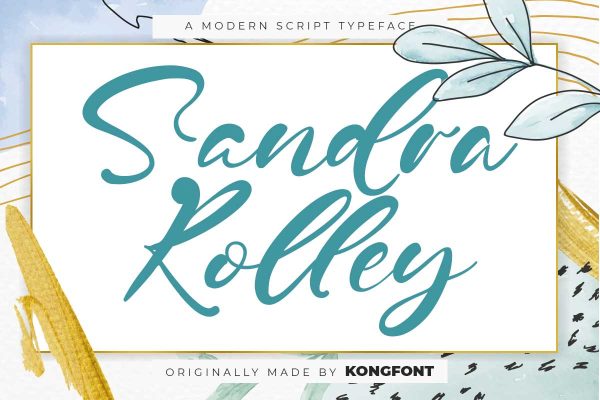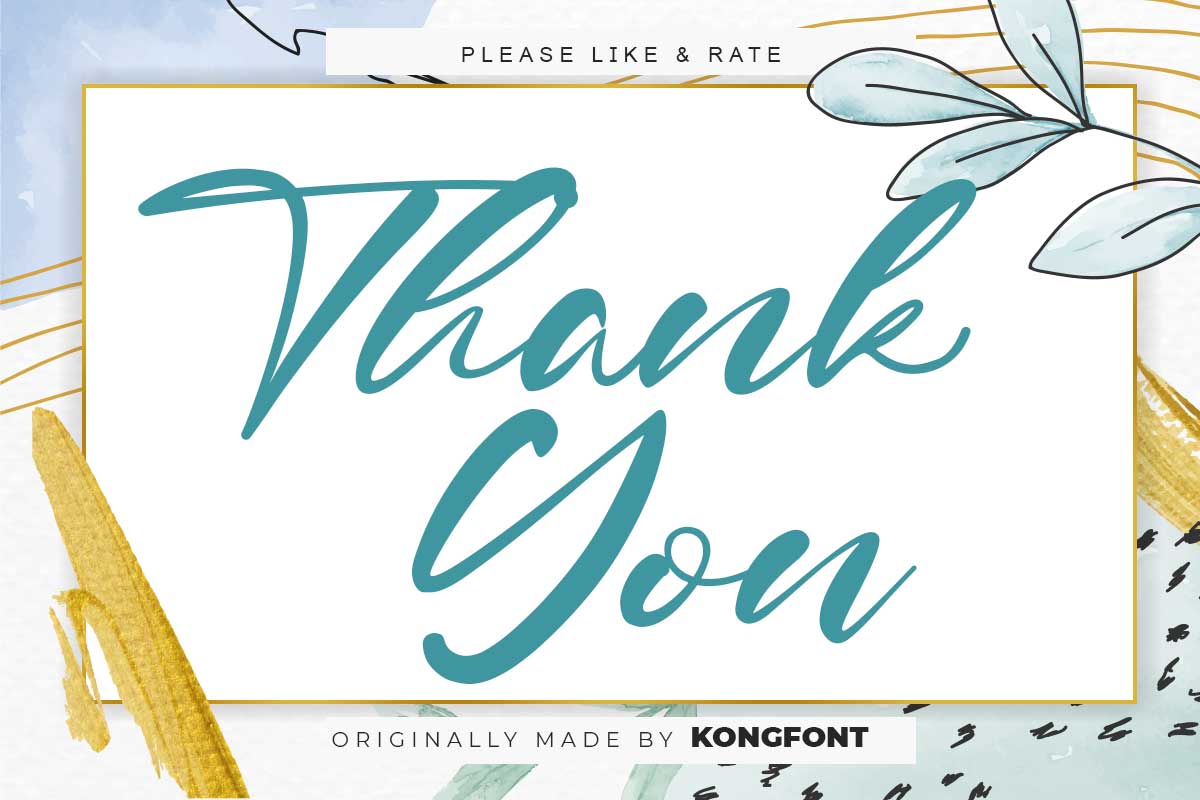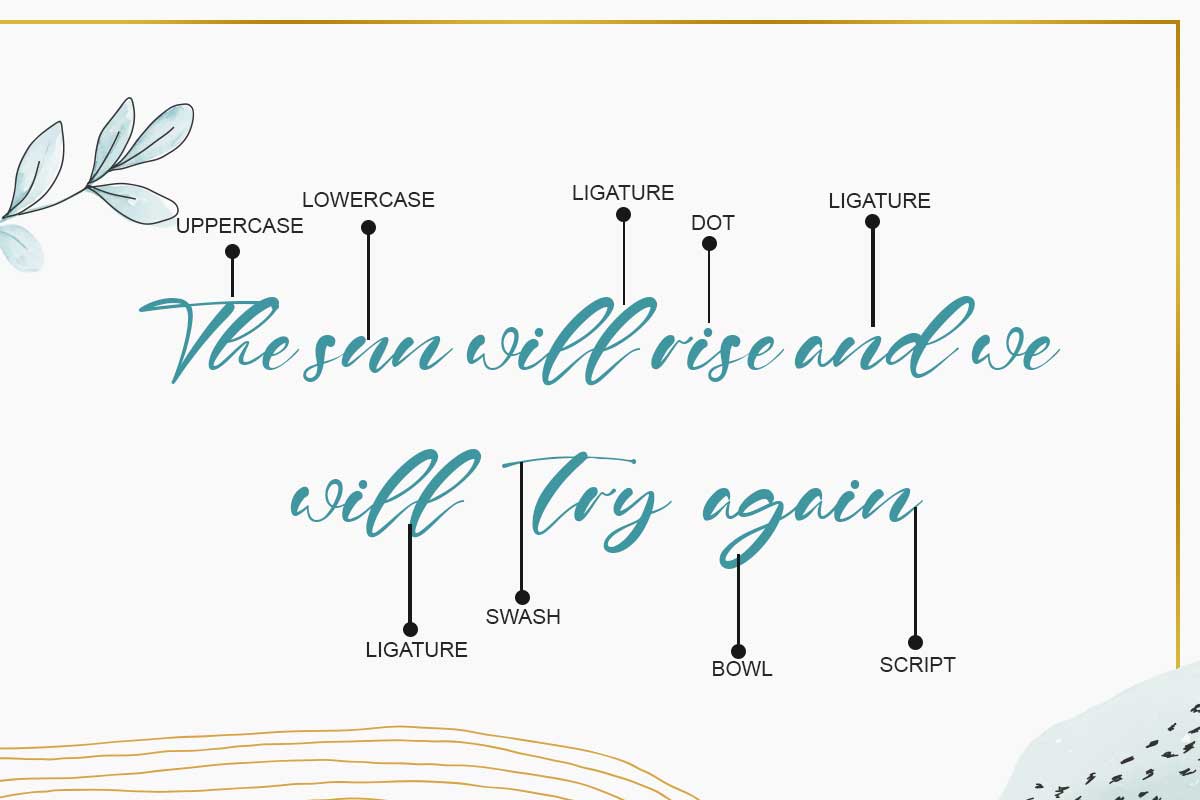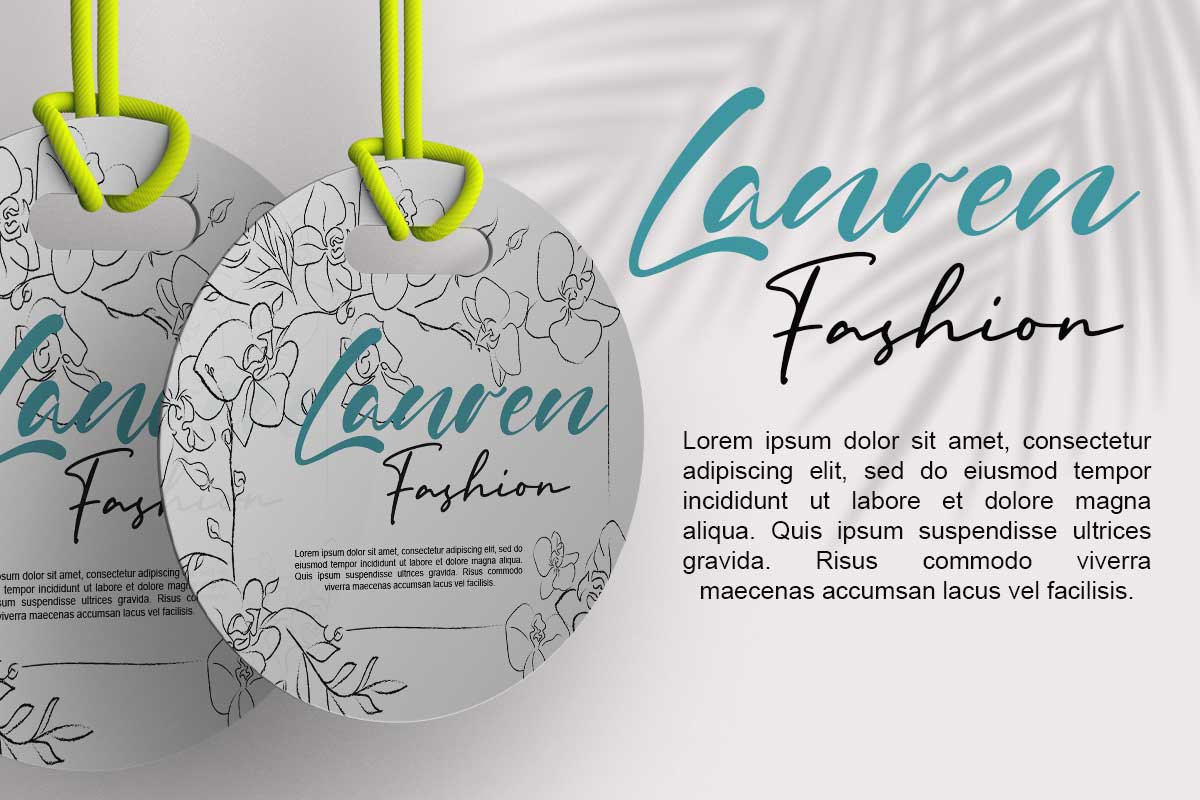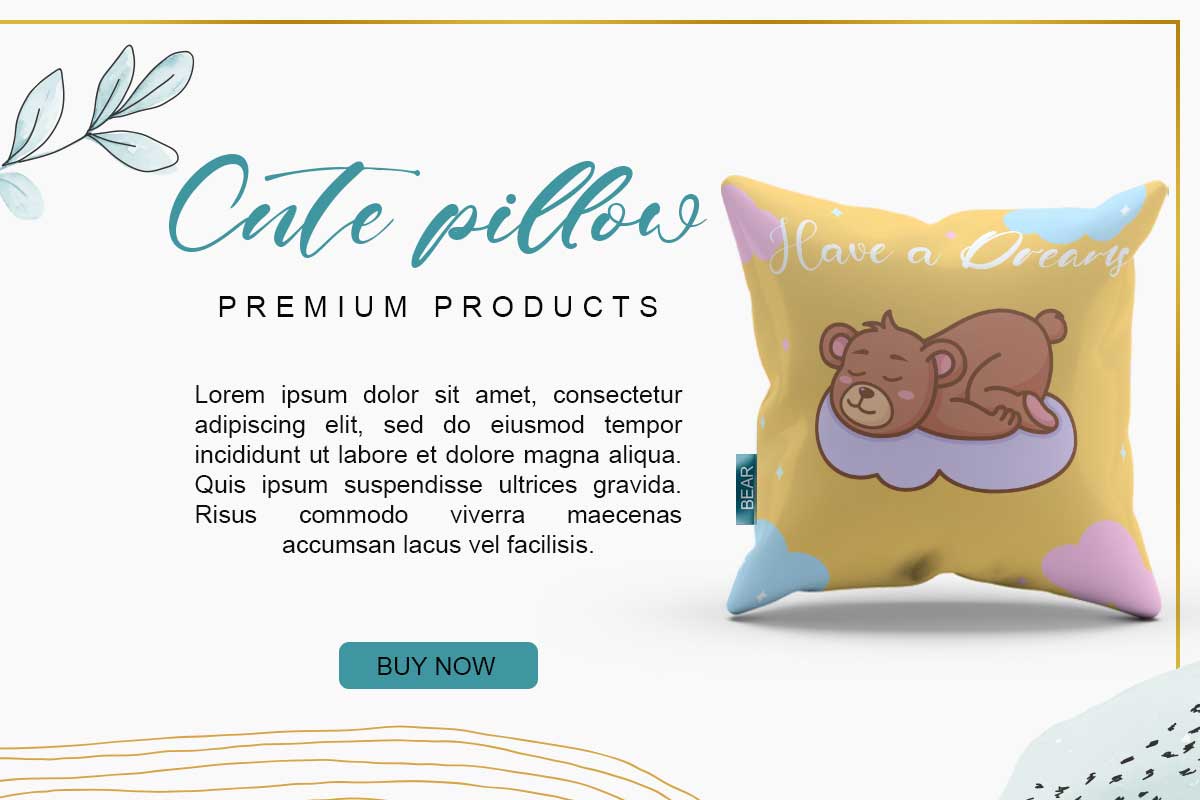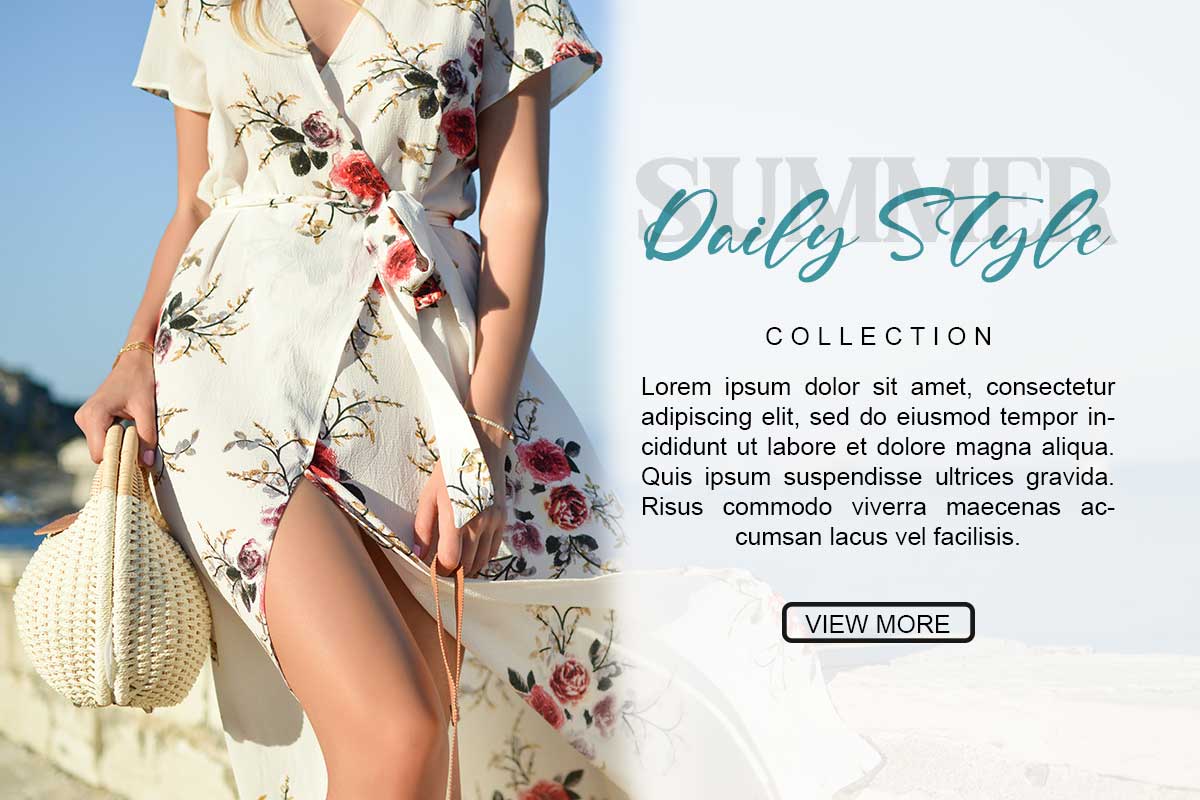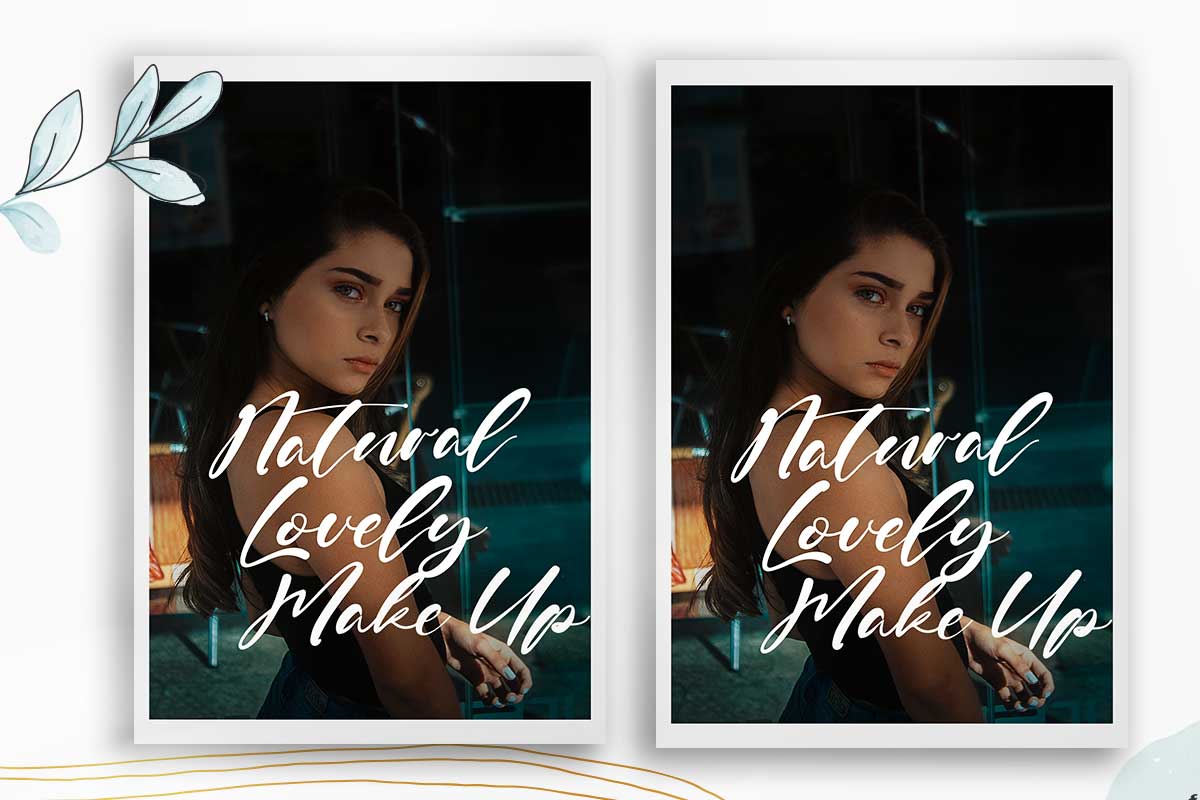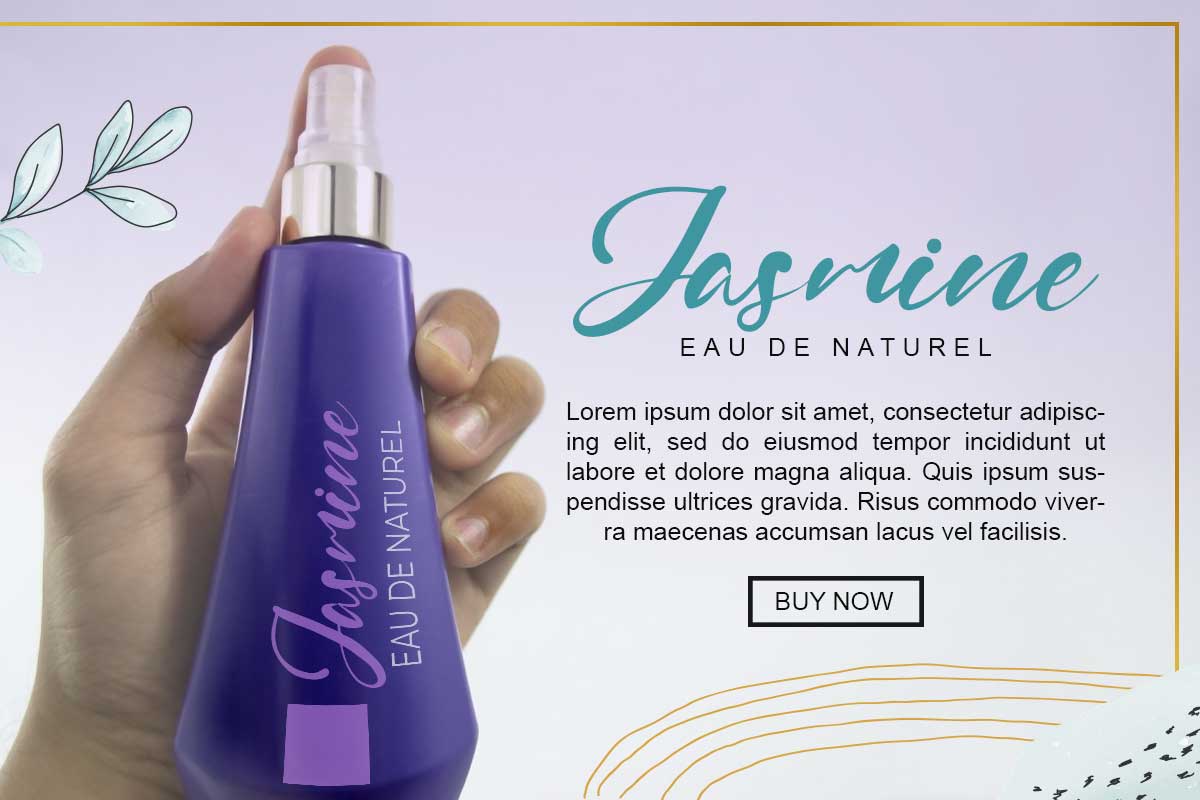
Sandra Rolley Elegant Script Font Handwritten script font, Sandra Rolley Elegant Script Font is a combination of modern fonts and handwritten fonts with an elegant and likable appearance. For this typeface, a brush pen is used to create it, so the beauty shines through and is very real. The brush used in this font is medium-tipped, so the resulting strokes are long and thin, curved and continuous. This type of font is the best font to use at formal events like weddings, graduation days, or gender parties and baby showers. You can also use it on invitations, letters, souvenirs, or thank you cards. Sandra Rolley Elegant Script Font will give everyone who sees it a simple yet elegant appeal. From the explanation of these characteristics and uses, Sandra Rolley Elegant Script Font is an aesthetic font. For other formal events like art exhibitions, you can use our Sandra Rolley Elegant Script Font on exhibition titles, team t-shirts, signage, and other items. This font can be applied as a digital font or print font. Combined with the right theme, supporting images, and atmosphere, Sandra Rolley Elegant Script Font will radiate like sunlight that illuminates a room. Our Script & Signature fonts collection is used as Figma Fonts, Canva Fonts, Freepik Fonts, and Adobe Fonts. They also work as Windows Fonts and Apple Fonts. For your social media needs, you can use and install fonts in our Script & Signature font collection to use as Instagram Fonts, Facebook Fonts, and Twitter Fonts.